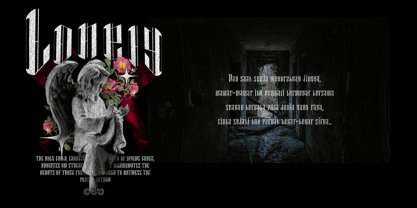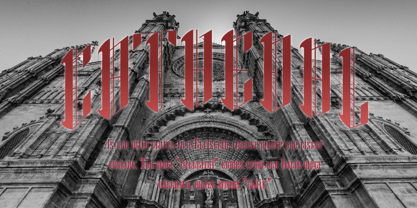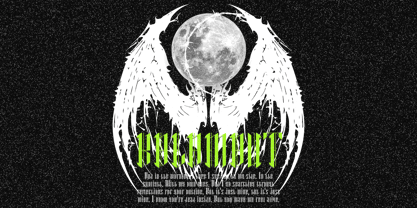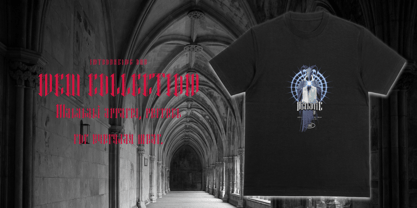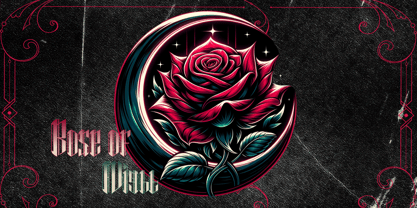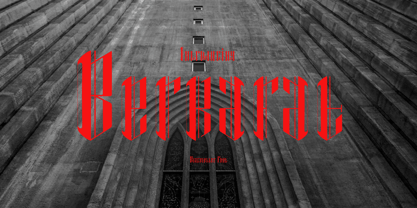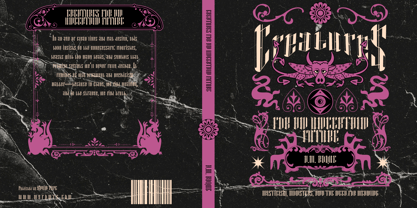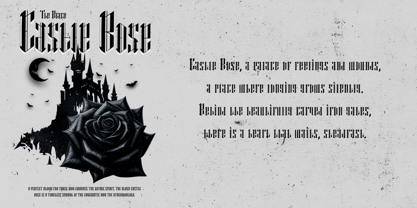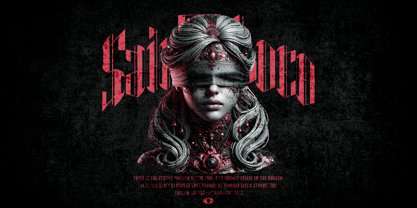
Berkarat
by Yavin Type
The Berkarat Font Family was designed by Amir Amir and published by Yavin Type. Berkarat contains 1 styles. More about this family
Berkarat is a classic blackletter-style font designed and produced by Yavin Type Studio. Blending a modern touch with the distinctive boldness of traditional blackletter, Berkarat elevates your visual message in any creative project. Key Features: -200+ Glyphs  Includes a comprehensive set of characters, symbols, and punctuation, making it highly versatile for a wide range of design needs. -Ligature & Alternate  Berkarat offers ligature and alternate features for unique letter combinations and alternative letterforms, adding variety and expressive possibilities to your typography. -Metric Kerning  Metric kerning ensures well-balanced and harmonious letter spacing, resulting in a polished and professional appearance. -Multilingual Support  Supports multiple languages, enabling designers to use Berkarat for both international and local projects. -Modern Blackletter Aesthetic  Perfect for logos, headlines, posters, certificates, invitations, artwork, and other designs that require a classic yet elegant feel. Use Berkarat to strengthen your visual messaging with a classic, artistic atmosphere that remains relevant to today's design trends.
Designers: Amir Amir
Current Foundry: Yavin Type